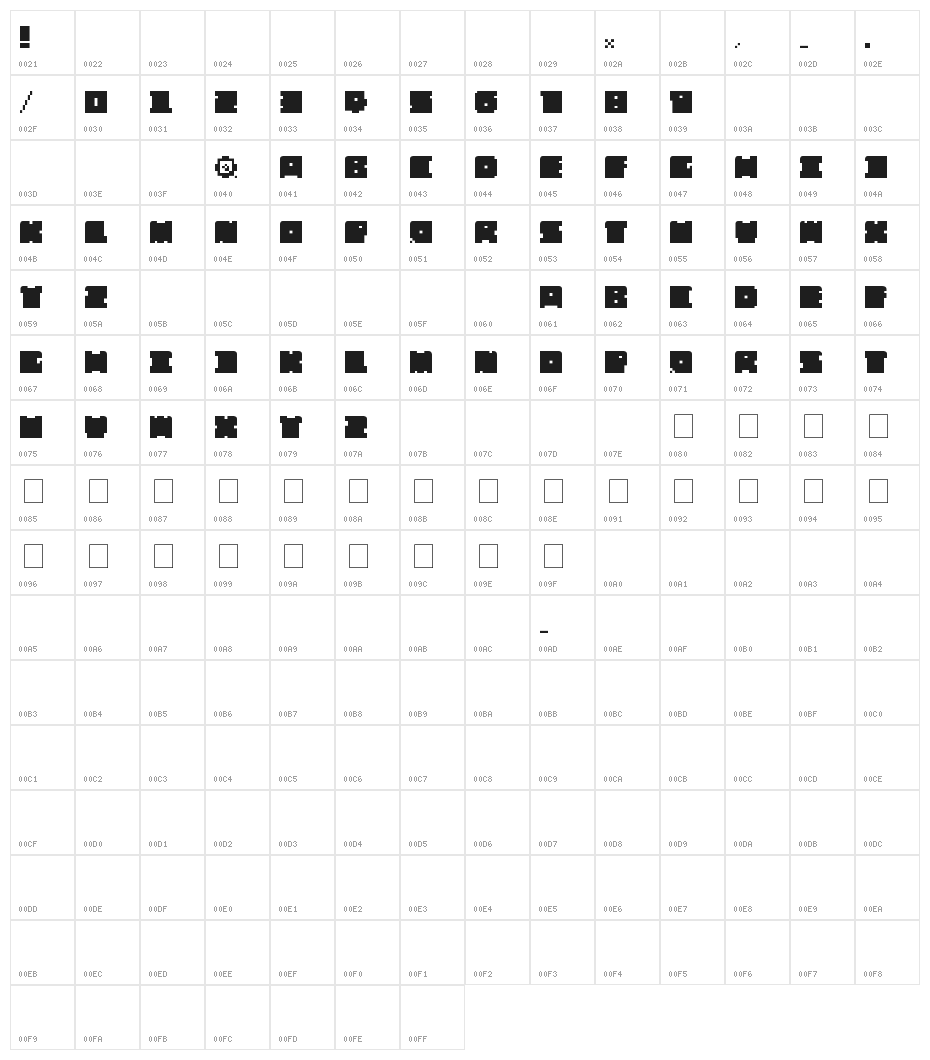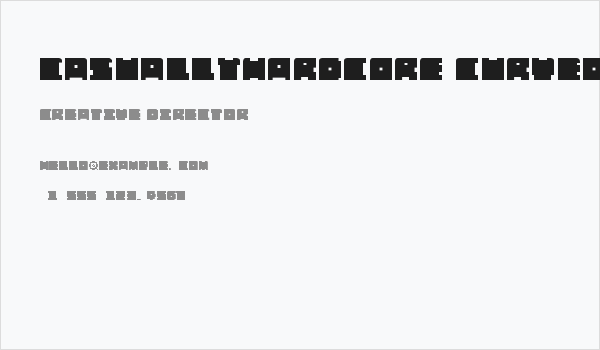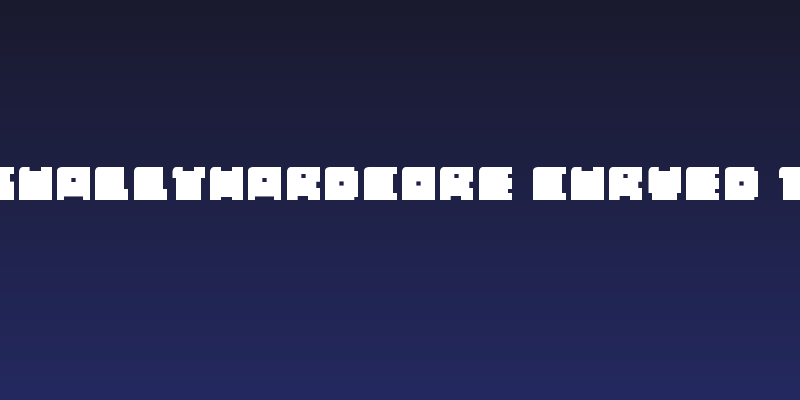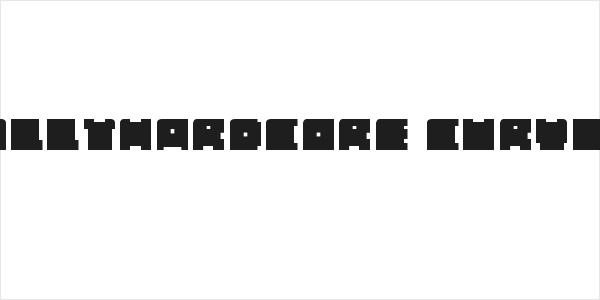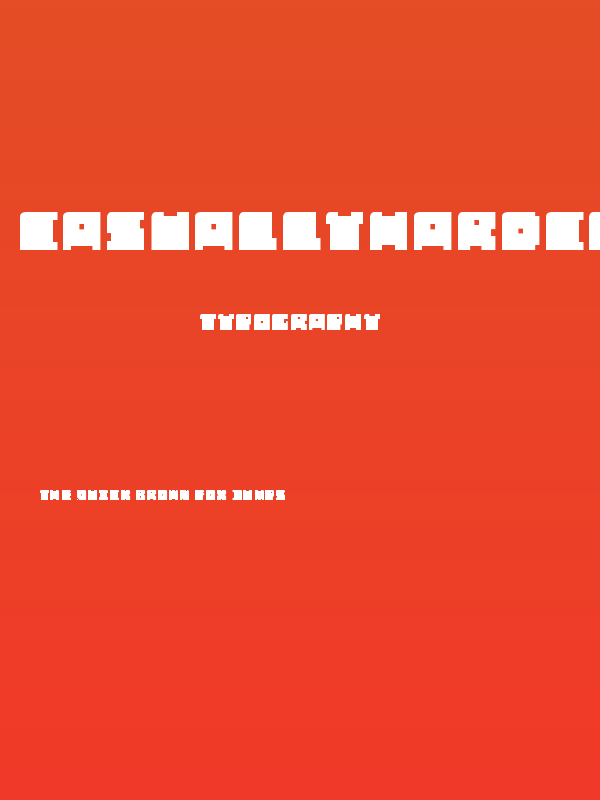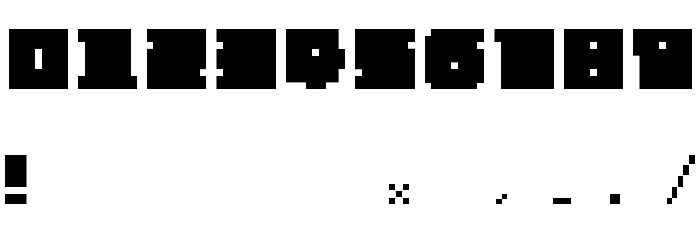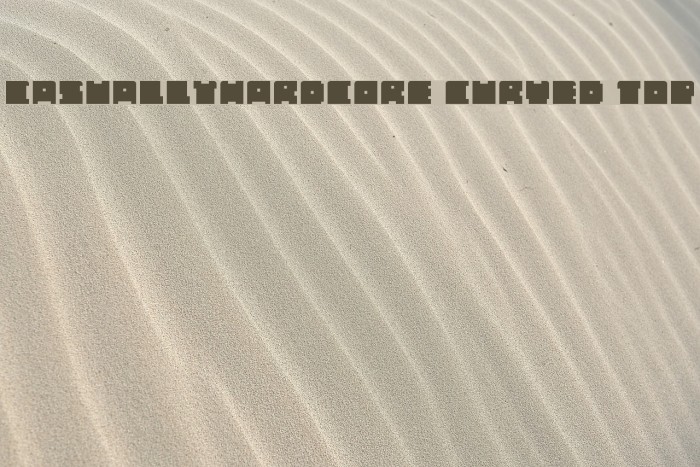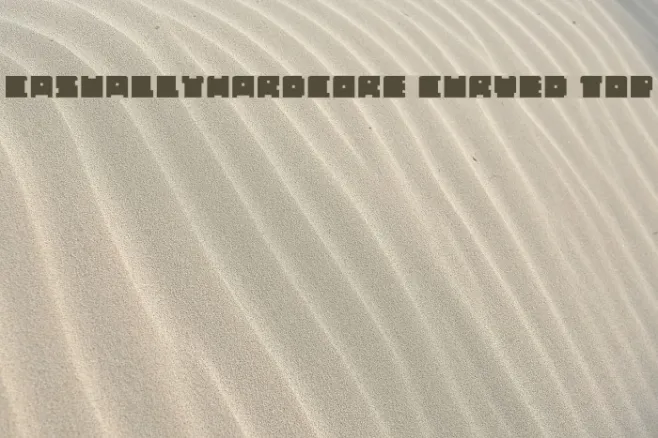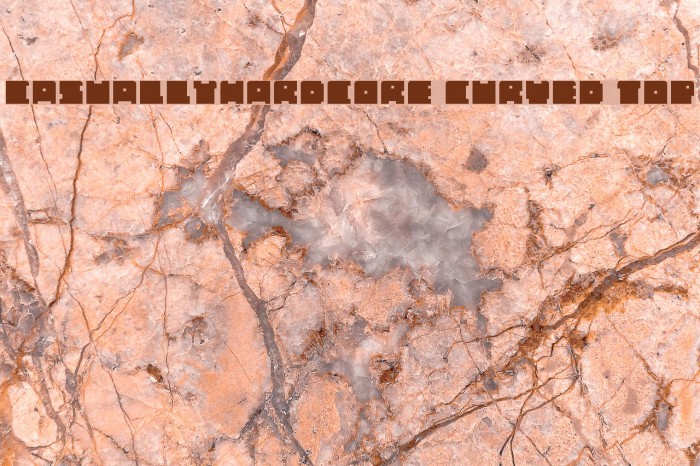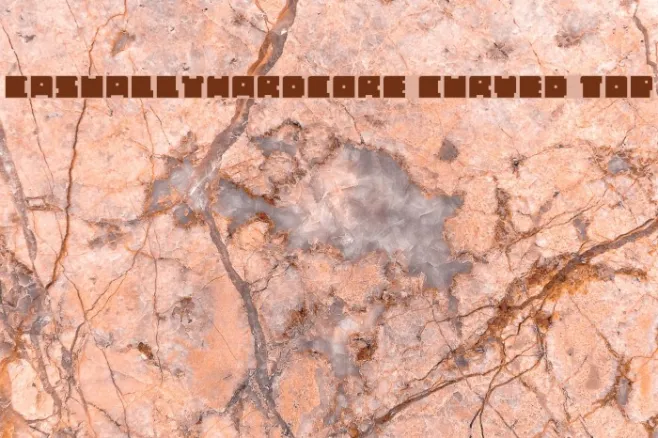
casuallyHARDCORE Curved Top Font
This font features a bold and blocky design with a distinct pixelated style, reminiscent of retro video game graphics. Each character is constructed with sharp, angular edges and a uniform thickness, giving it a strong and impactful appearance. The uppercase and lowercase letters maintain a consistent height, contributing to a cohesive look. The numerals and special characters follow the same design principles, ensuring uniformity across all glyphs. This font's unique style makes it stand out, ideal for projects that require a nostalgic or digital aesthetic.
| Overall Style | Retro, Digital |
| Proposed Projects | Ideal for video game graphics, retro-themed posters, digital art, and tech-related branding. |